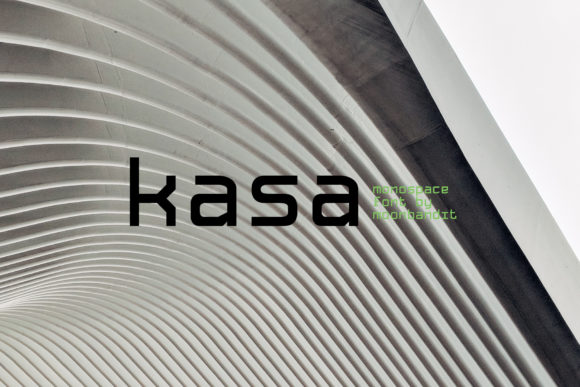
Behold! Introducing the Kasa Font, a revolutionary display font designed to ignite your creative vision and elevate your designs. Kasa is not just a font; it's an artistic muse, a visual symphony that will transform your designs into breathtaking masterpieces.
With Kasa, you have the power to craft political posters that command attention, leaving an indelible mark on your audience. Its bold and striking characters exude authority, demanding attention with their unapologetically confident stance. Whether you're advocating for change, promoting a cause, or simply making a bold statement, Kasa is your font of choice.
Kasa's sleek and futuristic design transcends time, making it perfect for any poster or flyer. Its sharp angles and dynamic lines create a sense of movement, drawing the eyes of your audience into your message. Whether you're designing for a political campaign, a social movement, or a cultural event, Kasa will elevate your message to new heights.
Explore the endless possibilities of Kasa and unlock your creative potential. Its versatility knows no bounds, as it seamlessly adapts to various design styles and themes. From bold and edgy to sleek and sophisticated, Kasa effortlessly complements your vision, allowing you to convey your message with unmatched impact.
Imagination meets reality with Kasa. It's more than just a font; it's an experience, a journey into the realm of captivating design. Let Kasa be your guide as you navigate the world of political posters, creating works of art that spark conversations, ignite change, and leave a lasting impression.